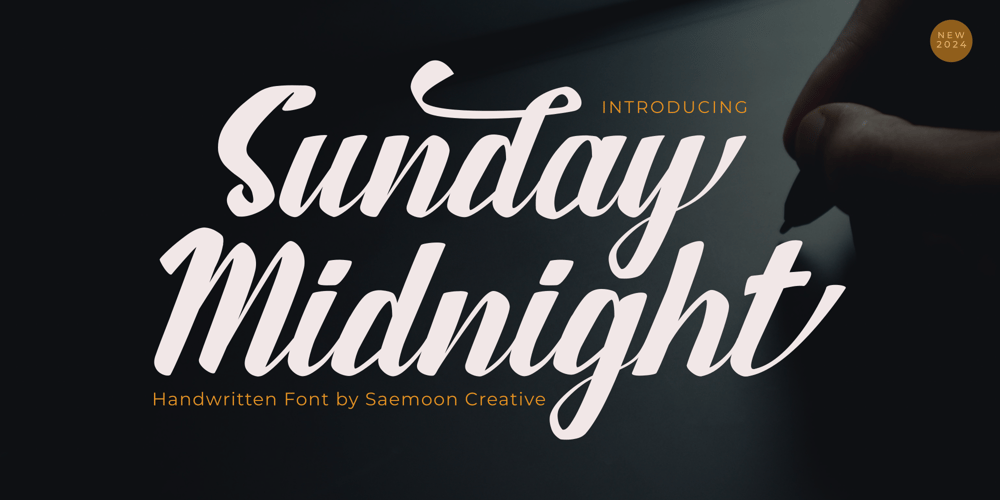
Sunday Midnight
Sunday Midnight font
Sunday Midnight Font Family was designed by Sapto Susilo and published by Saemoon Creative. Sunday Midnight contains 1 styles and family package options. Sunday Midnight Script is a hand lettered script font. It has a bold and smooth style and is perfect for making any design stand out. Best suitable for branding, packaging, print titles, tshirt design, food design, and similar projects.We hope you enjoy the font, please feel free to comment if you have any thoughts or feedback.